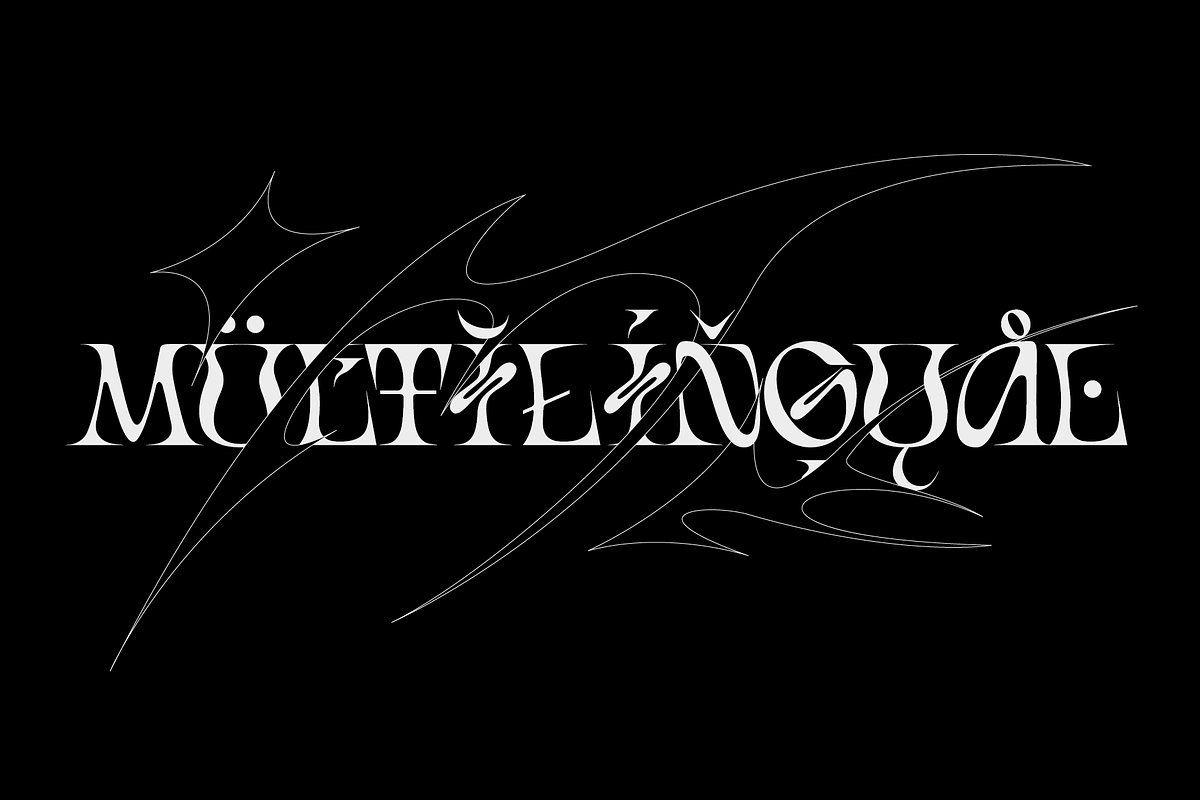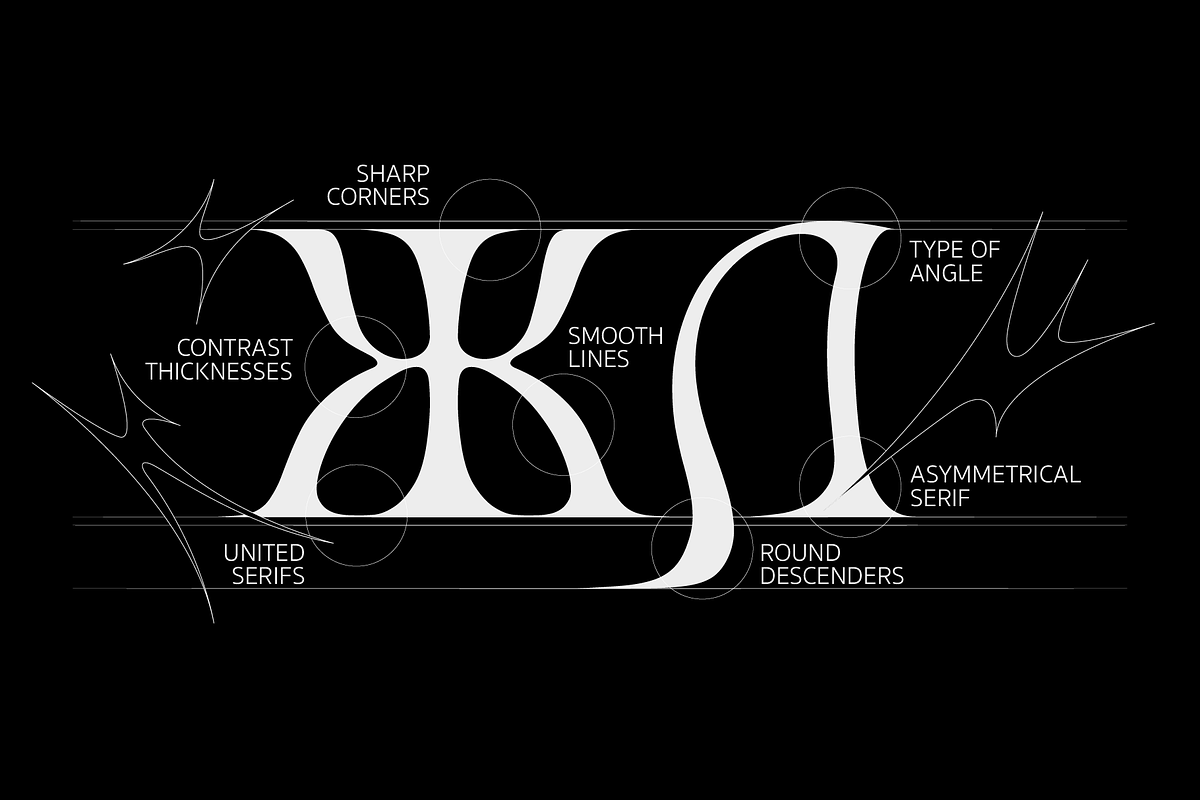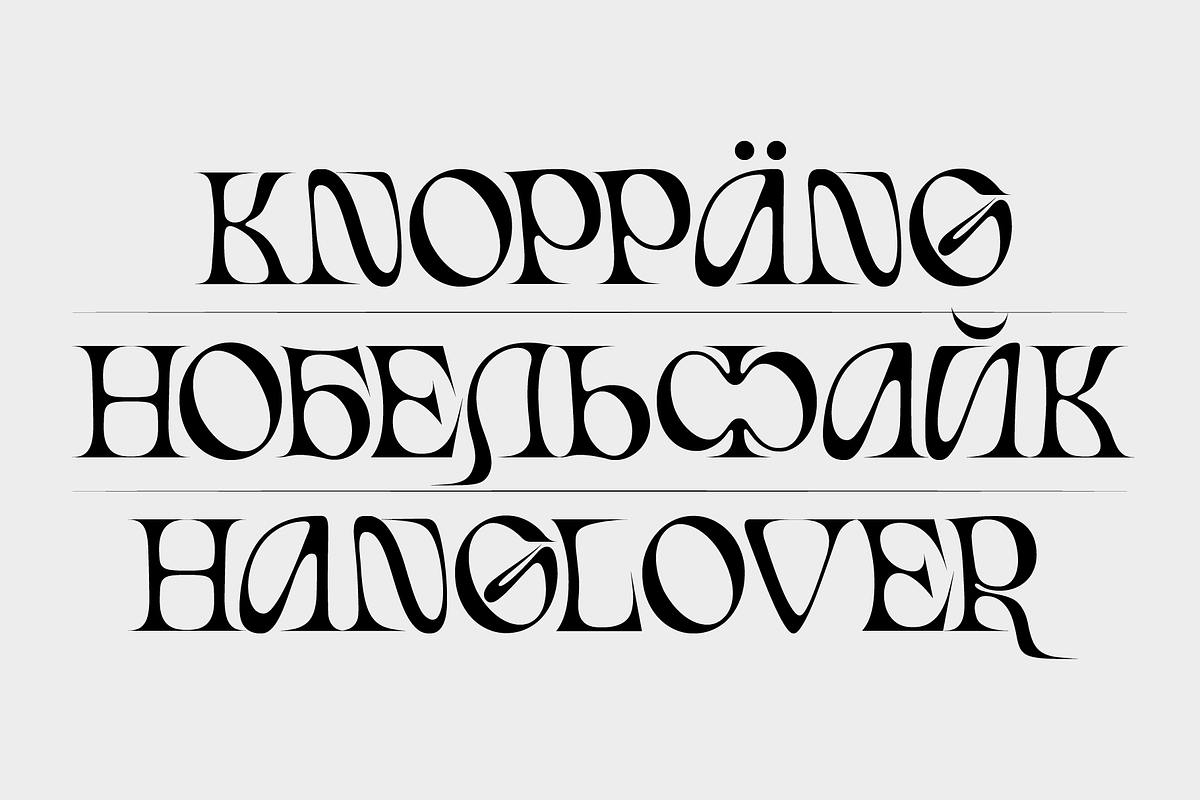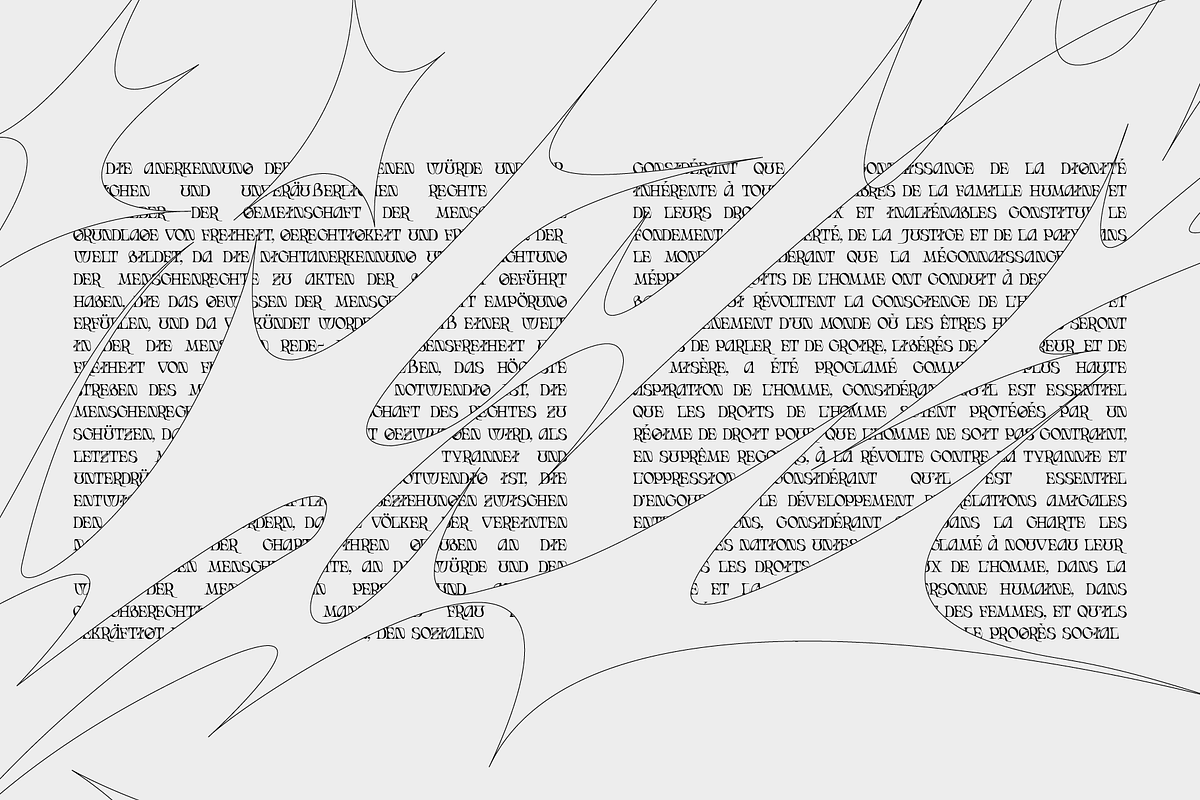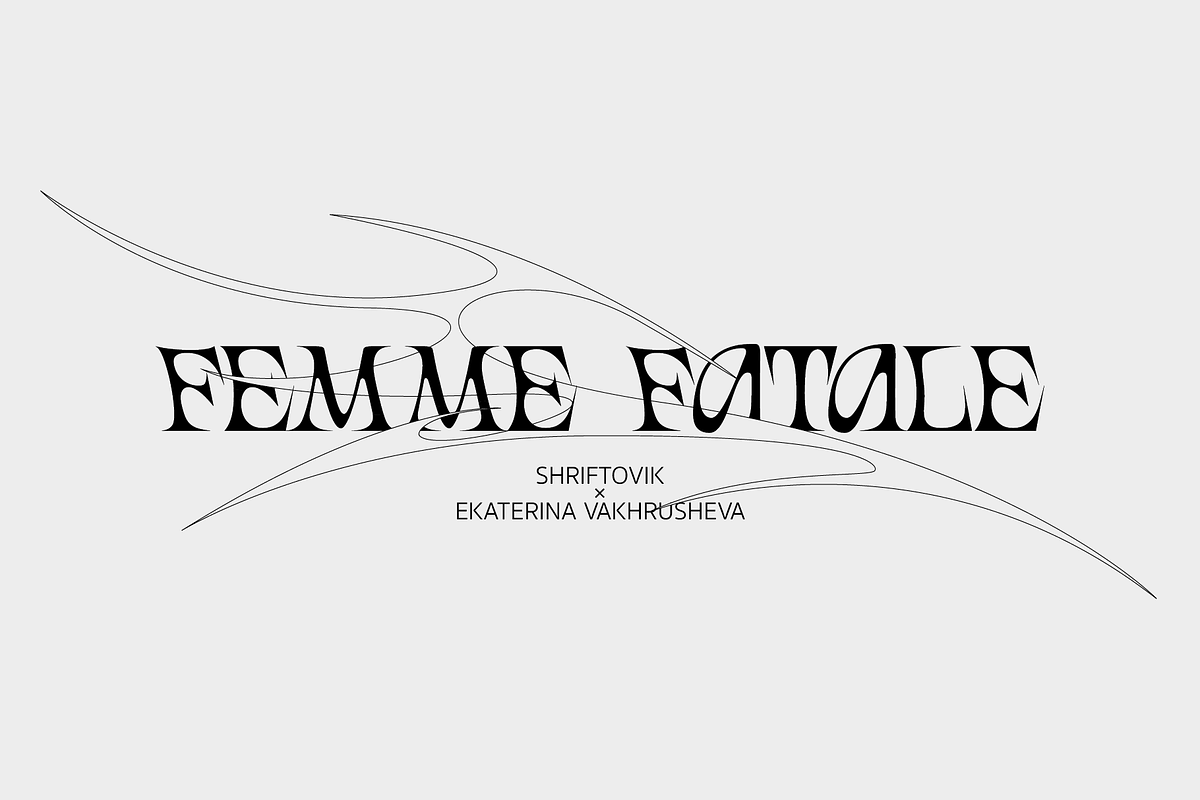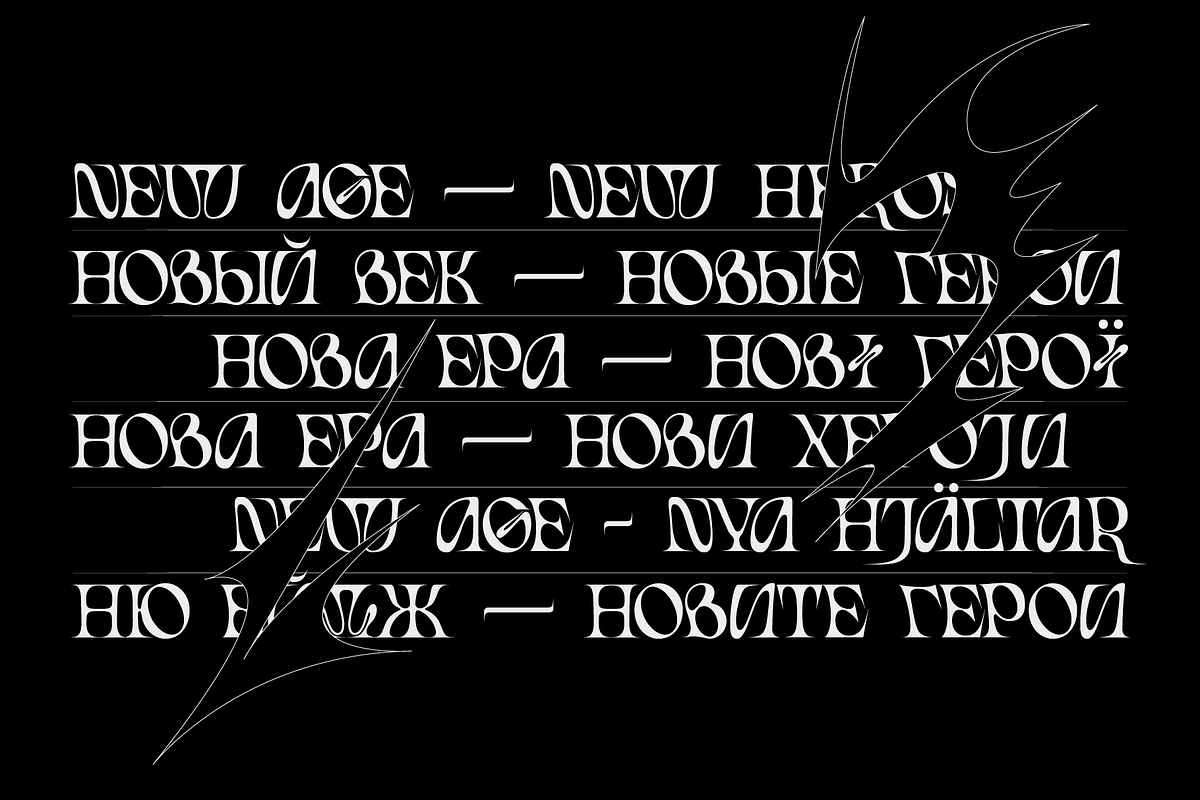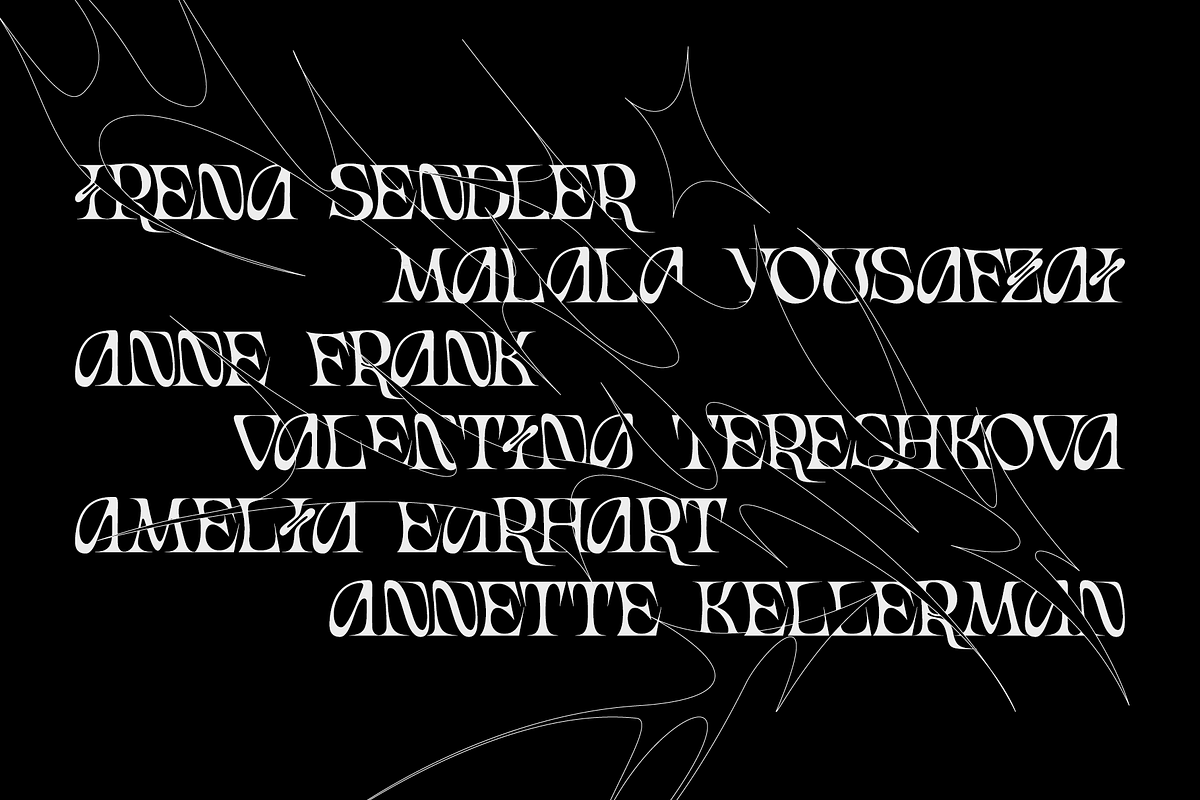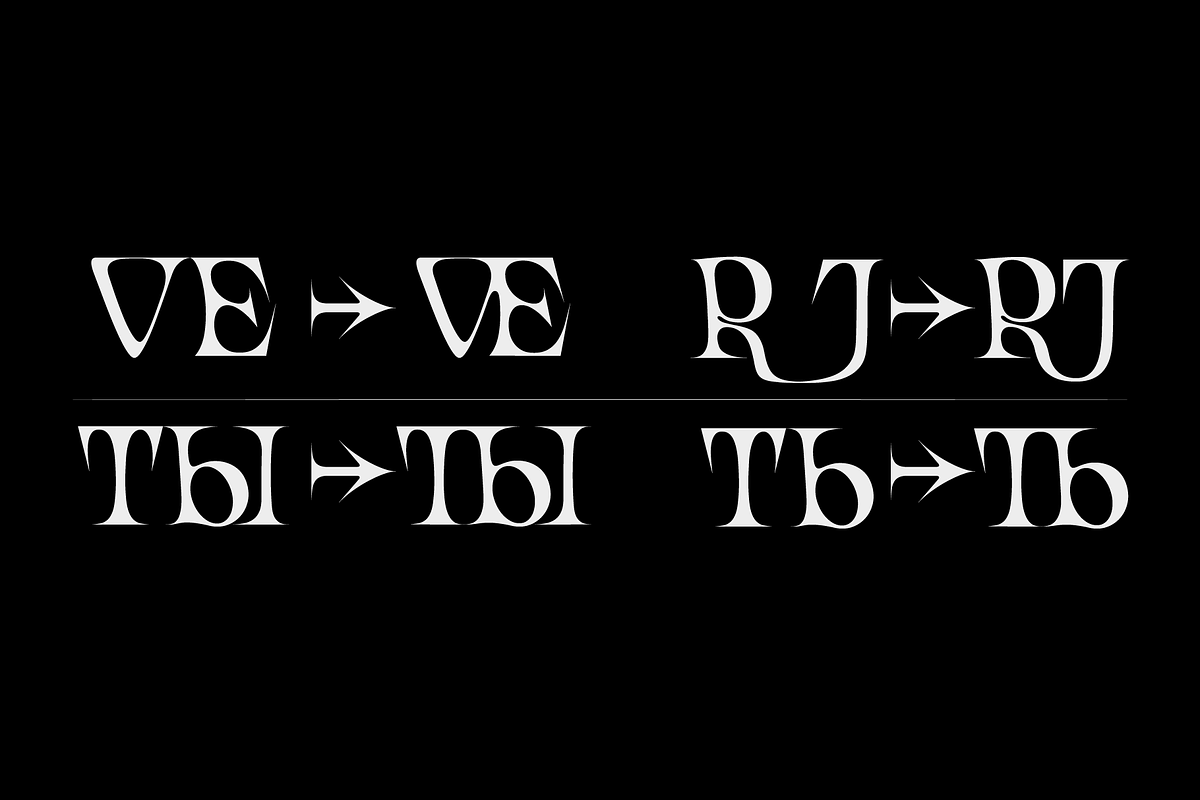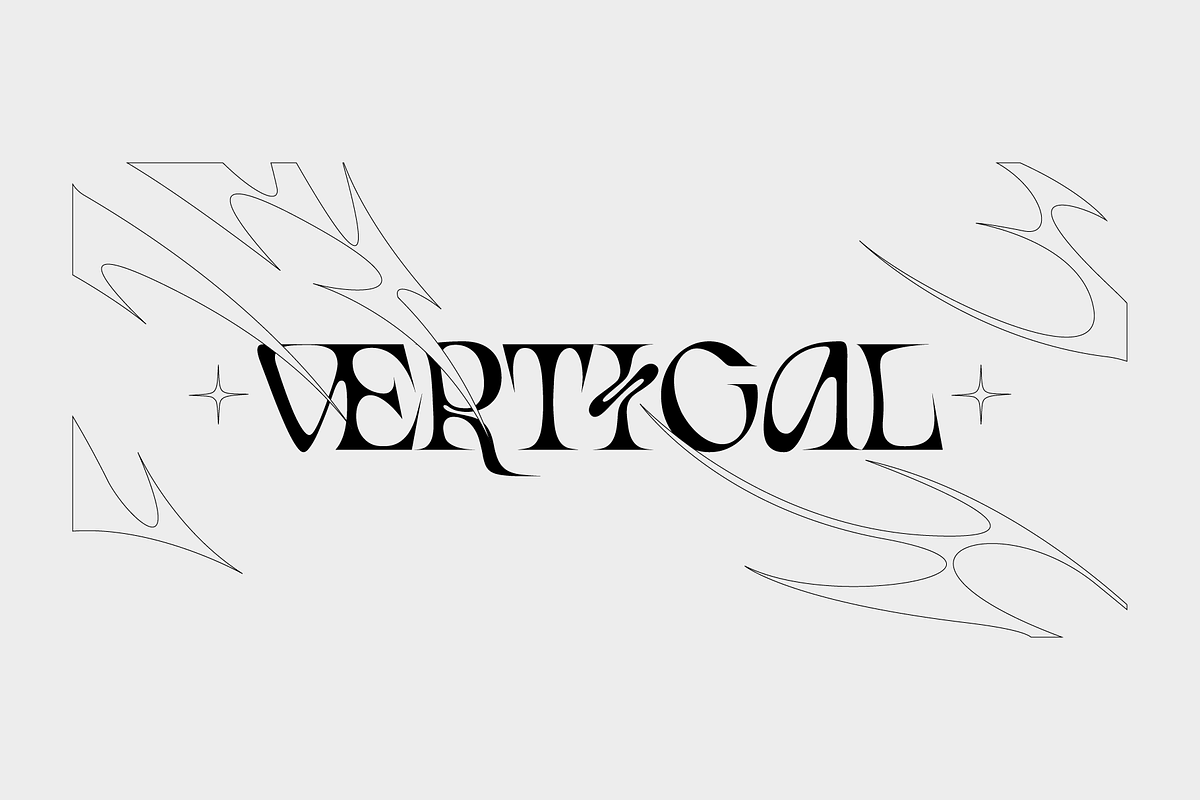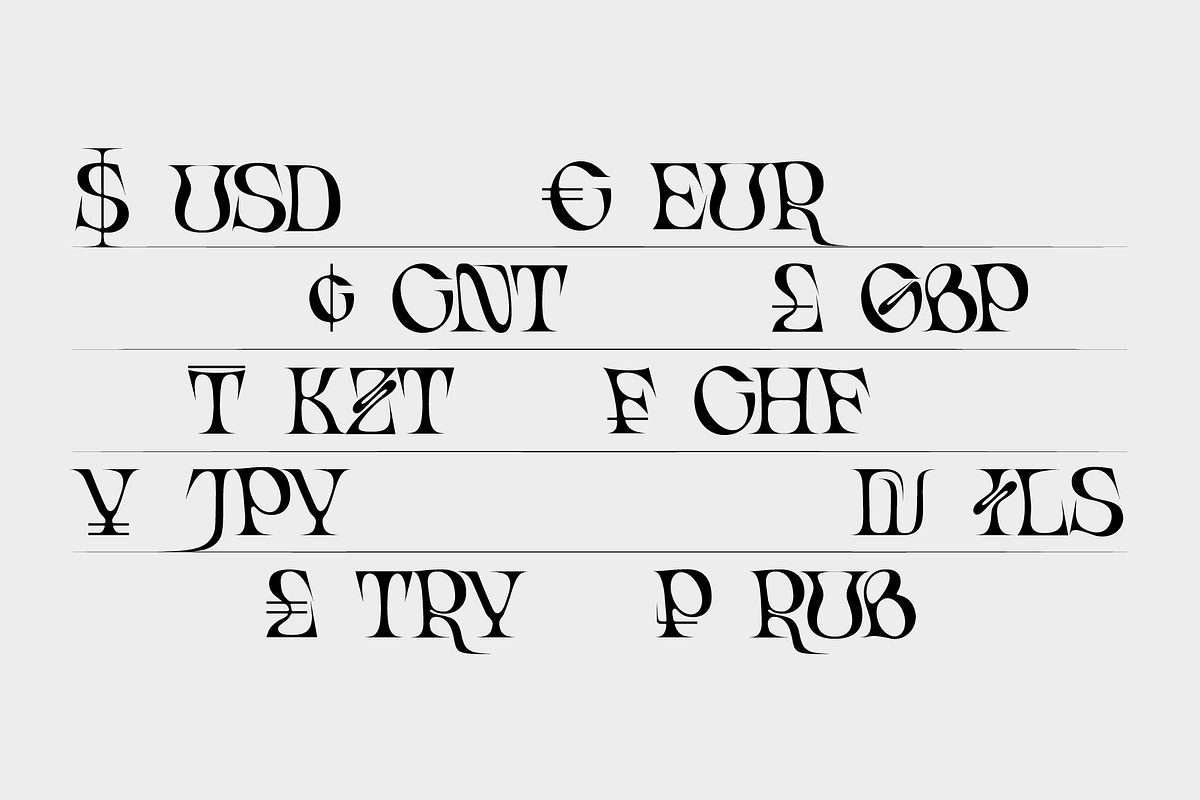
SK Femme Fatale — Decorative Serif
SK Femme Fatale is a decorative typeface inspired by strong women and their contributions to culture and design. The typeface is built with great attention to detail, its curves are thought out to the smallest detail, which gives the symbols a unique sophisticated character. The symbolic composition is rich not only visually, but also in typesetting: the typeface supports many languages, including extended Cyrillic alphabet and Latin alphabet. For better visual communication, ligatures have been added to the typeface. They enhance the interaction of the character form. A wide range of additional characters, numbers, arrows, etc., expand the possibilities of using the typeface in various areas of design.